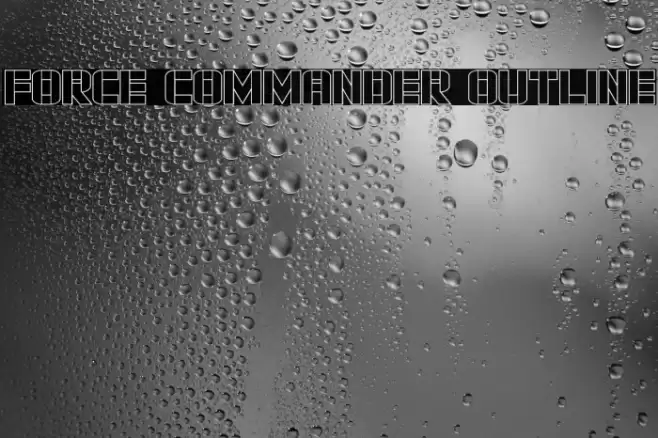
Force Commander Outline Font
Force Commander Outline Description
This font features a bold, geometric design with an outline style that gives it a futuristic and industrial feel. The characters are constructed with straight lines and sharp angles, creating a sense of precision and modernity. The uppercase and lowercase letters maintain a consistent height, contributing to a uniform appearance. The numbers and special characters are designed with the same geometric principles, ensuring a cohesive look across all elements. The outline style adds a unique dimension, making the font suitable for eye-catching designs.
A bold, geometric outline font with a futuristic and industrial aesthetic from Uncategorized fonts.
- Proposed Projects: Ideal for sci-fi themed projects, tech branding, video game titles, and futuristic posters.